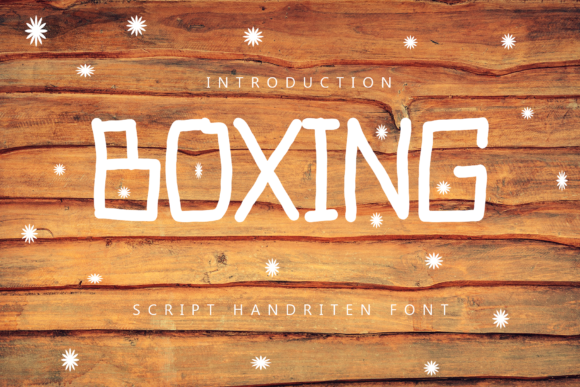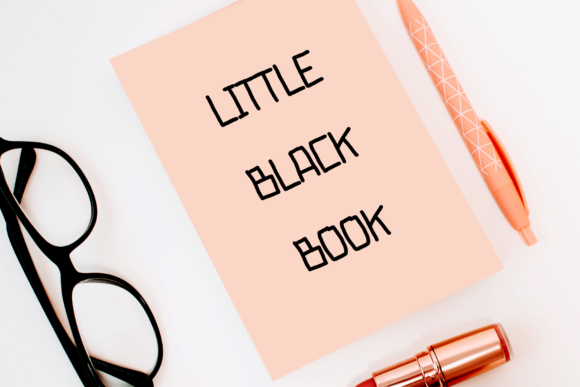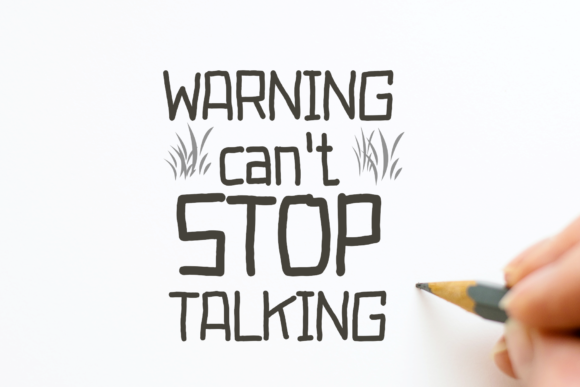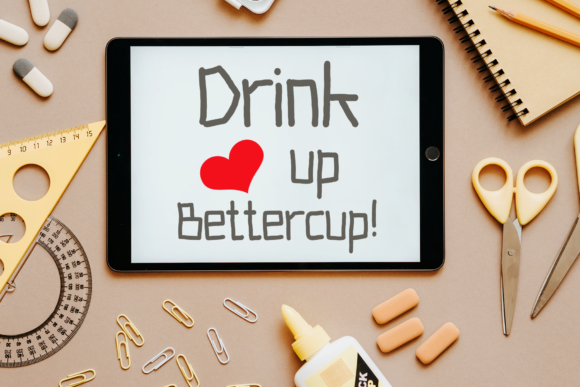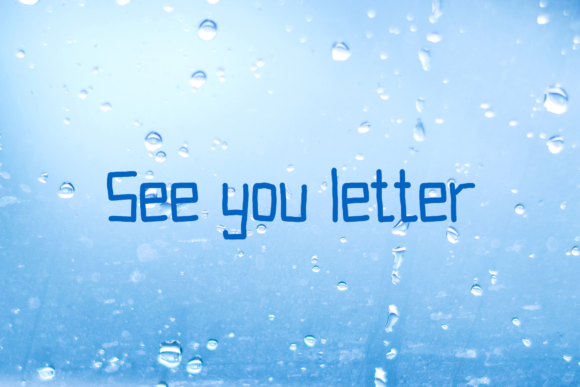
The Perfect Punch for Your Designs: Boxing Font
Have you ever been stuck on a design project, staring at a blank screen, and suddenly a spark of creativity hits you? It’s like a knockout punch – it leaves you breathless and inspired. For me, that moment happened when I discovered the Boxing Font. This cute and simple display font is the perfect addition to any design, adding a unique touch that sets your work apart.
Boxing Font is designed to be the star of the show, adding a playful and eye-catching flair to your designs. Its simplicity makes it versatile and easy to use, allowing you to incorporate it into any project, from social media graphics to wedding invitations. As a designer, you know the value of having the right tools at your disposal – and Boxing Font is definitely one to add to your arsenal.
Boxing Font Key Features
- Font Style: A modern sans-serif font with geometric shapes and a bold, athletic feel, reminiscent of boxing gloves.
- Unique Characteristics: Features a distinctive, dynamic feel with sharp lines and angles, making it perfect for bold headlines and titles.
- Font Weight: Available in light, regular, and bold weights, allowing for flexibility in design applications.
Designer Review: Boxing Font
Overall, I think Boxing Font is a decent choice for a display font, but it has its limitations. Let’s start with what works well:
- ✨ Unique and quirky design: Boxing Font has a distinctive, hand-crafted feel that sets it apart from more generic sans-serif fonts.
- ✨ Good for headings: The font is bold and attention-grabbing, making it perfect for headings, titles, and other large text.
- ✨ Works well in digital formats: Boxing Font renders well in various digital formats, including web and mobile applications.
Now, let’s talk about the limitations:
- ⚠️ Limited legibility: The font’s unique design can make it difficult to read, especially in smaller sizes or when used for large blocks of text.
- ⚠️ Not suitable for body text: Due to its bold and attention-grabbing nature, Boxing Font is not ideal for body text or paragraphs, where readability is key.
- ⚠️ Limited font weights: The font only comes in a few weights, which can limit its versatility in certain design situations.
Overall, I’d give Boxing Font 3 out of 5 stars. It’s a great choice for specific design situations, but it’s not a go-to font for everyday use. With some careful consideration and use in the right context, however, Boxing Font can be a powerful tool in your design arsenal.
Practical Application Guide for Boxing Font
Boxing Font is commonly used for:
– Creating eye-catching headlines and titles
– Adding a touch of modernity to text-based designs
– Highlighting important information or calls-to-action
Tips for Getting the Most Out of Boxing Font
Some tips to get the most out of Boxing Font include:
– Experimenting with different font sizes and colors to create visual interest
– Using the font in combination with other design elements to create a cohesive look
– Keeping the design simple and uncluttered to let the Boxing Font take center stage
Alternatives to Boxing Font
1. Rockwell Font
Rockwell Font is a slab serif typeface that is often used for body text and headings. It has a strong, sturdy feel that is reminiscent of metal or stone. Rockwell Font is suitable for use in print materials such as magazines, brochures, and business cards. It is a good alternative to Boxing Font for designers who want a more traditional or vintage look.
Compared to Boxing Font, Rockwell Font has a more formal and classic feel. While Boxing Font is often used for informal or playful designs, Rockwell Font is better suited for professional or corporate designs.
2. Arial Black Font
Arial Black Font is a sans-serif typeface that is often used for headings and titles. It has a bold and modern feel that is suitable for use in digital designs such as websites, social media, and advertising. Arial Black Font is a good alternative to Boxing Font for designers who want a bold and attention-grabbing font.